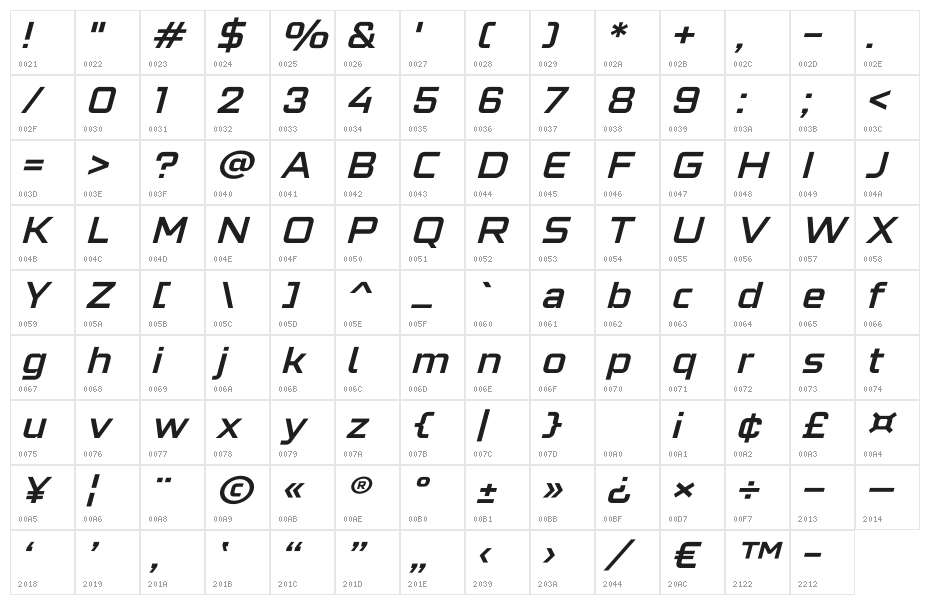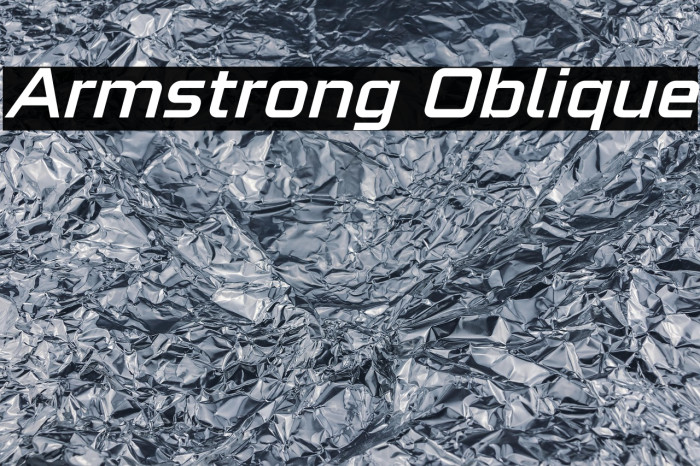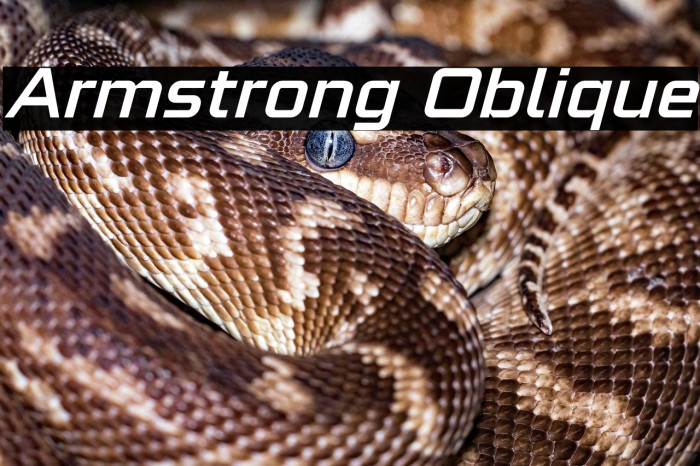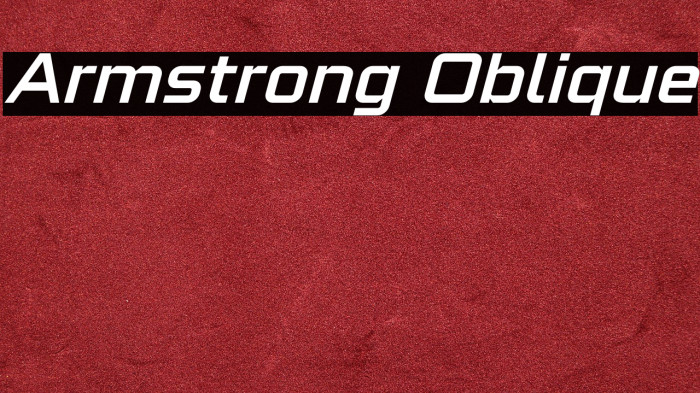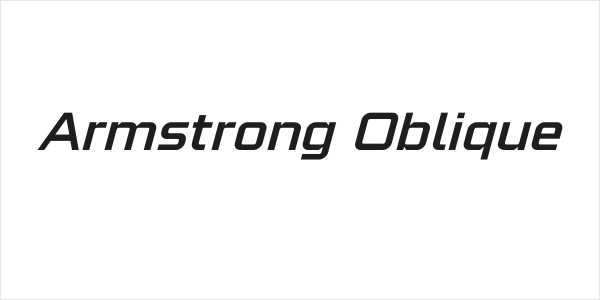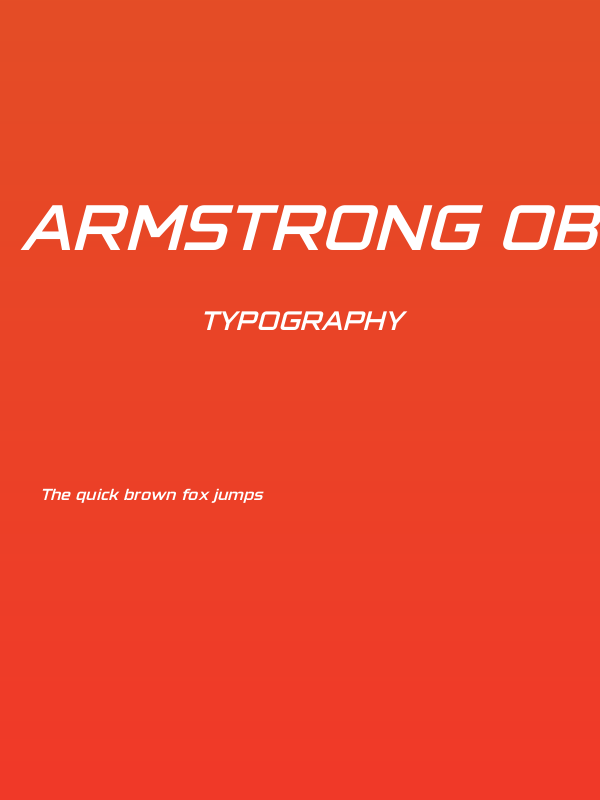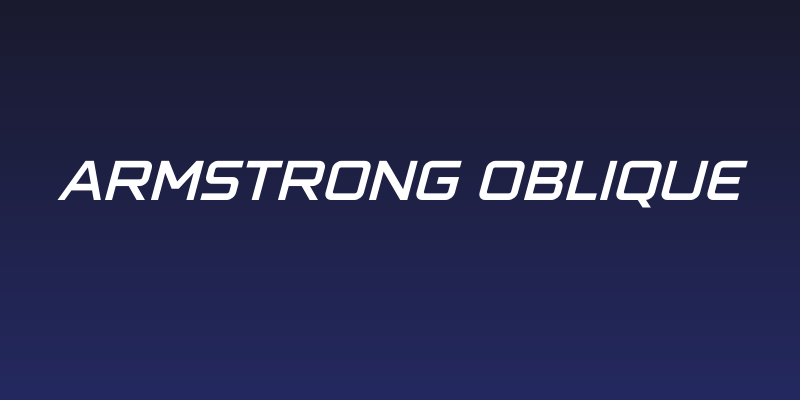
Armstrong Oblique Font
Armstrong Oblique Description
This font exhibits a sleek, modern design with an oblique orientation, giving it a dynamic and forward-leaning appearance. The characters are crafted with precision, featuring clean lines and a uniform stroke width that conveys a sense of speed and efficiency. The uppercase and lowercase letters maintain a consistent style, with slightly rounded edges that soften the overall look without compromising its contemporary feel. The numerals and special characters are designed to match the alphabet's aesthetic, ensuring a cohesive appearance across all text. This font is ideal for projects that require a modern and professional touch, such as branding, advertising, and digital interfaces.
| Use Case | Headlines, Logos, Digital Interfaces |
| Proposed Projects | Ideal for branding, advertising, digital interfaces, and any project needing a modern touch. |